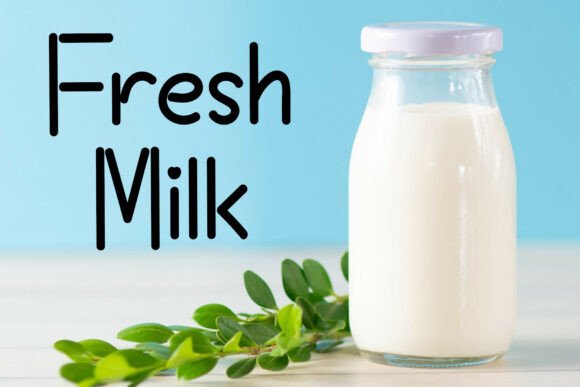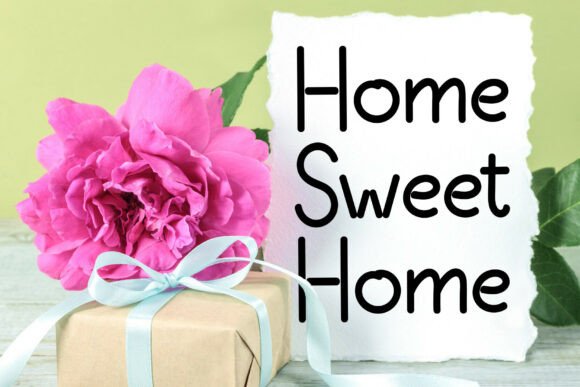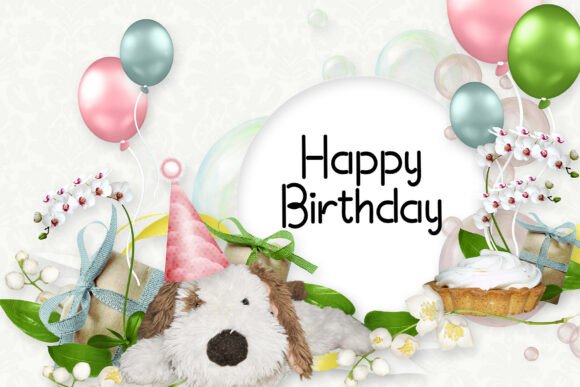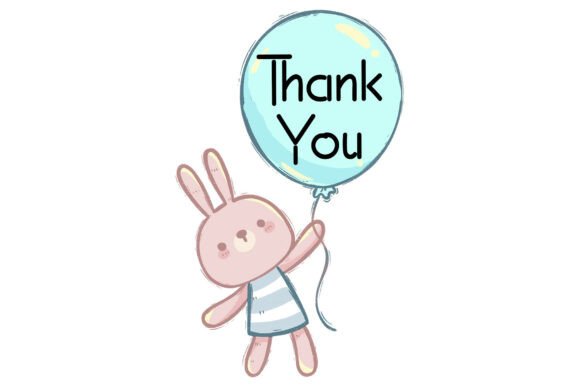
Introduction to Minimalis Valentine Font
Minimalis Valentine is a modern handwritten font with a romantic heartwarming twist.
Clean, rounded letters with adorable heart-shaped details make this font perfect for love-themed designs, greeting cards, and wedding invitations It balances minimalism with charm for a contemporary, lovable feel.
Key Features of Minimalis Valentine Font